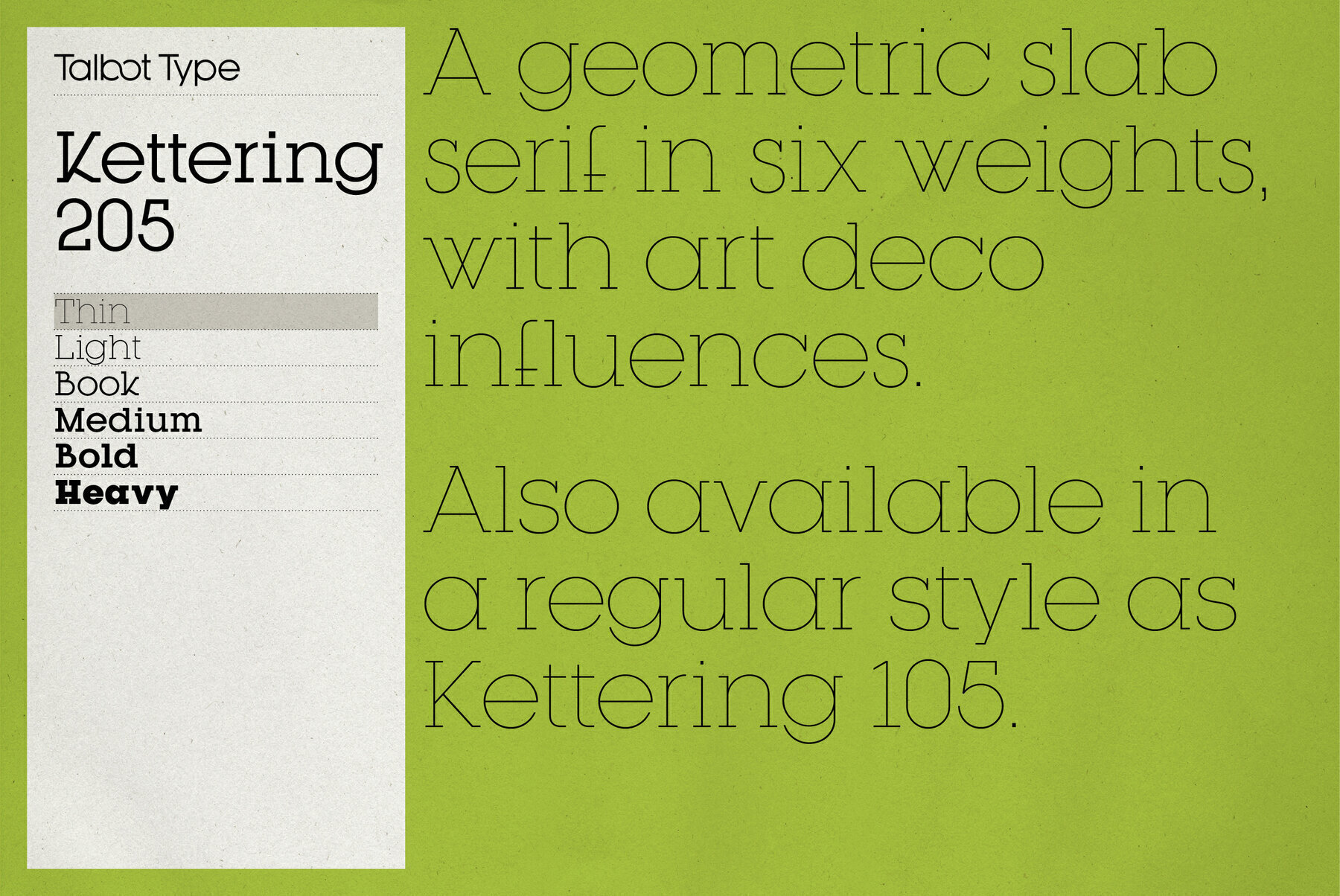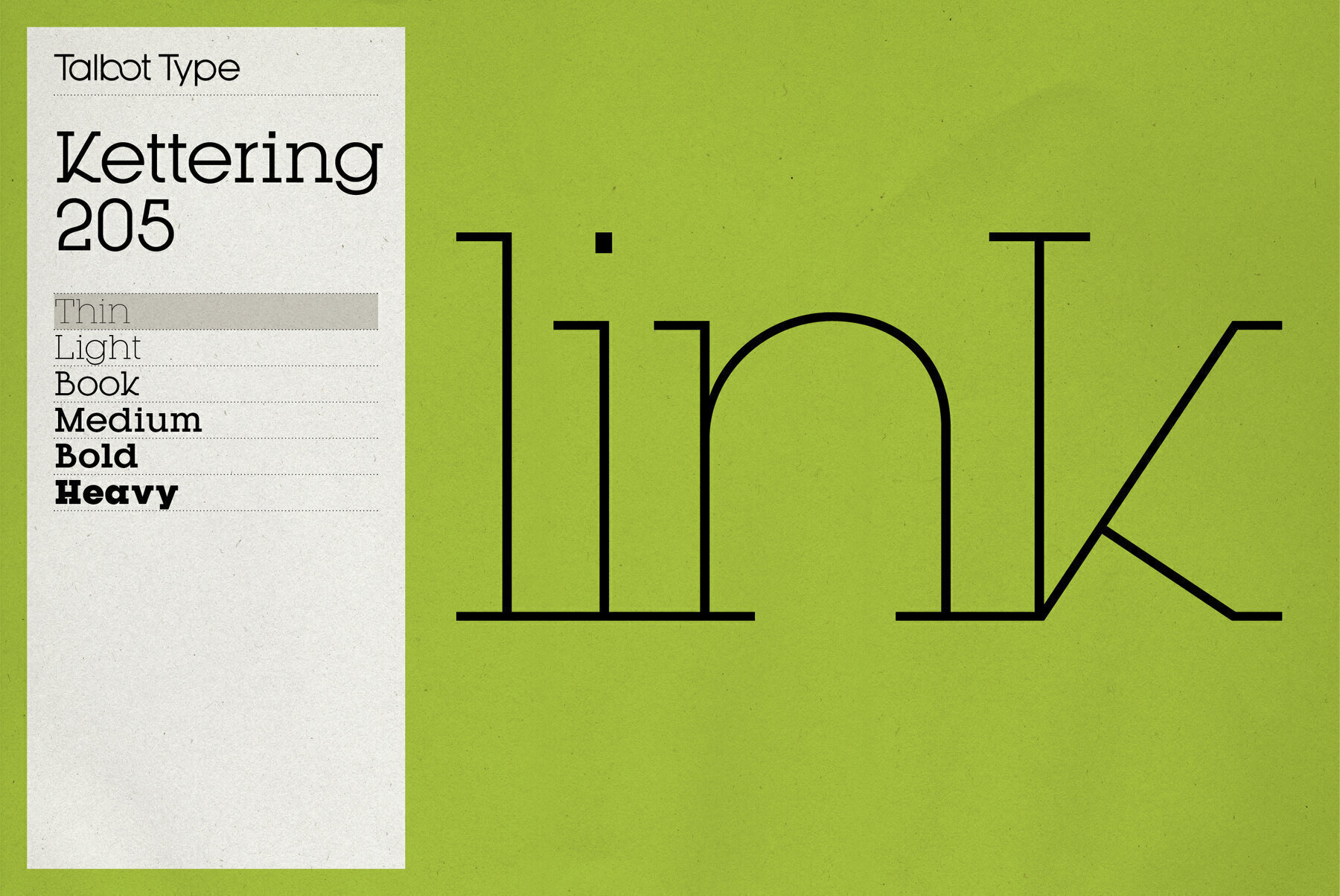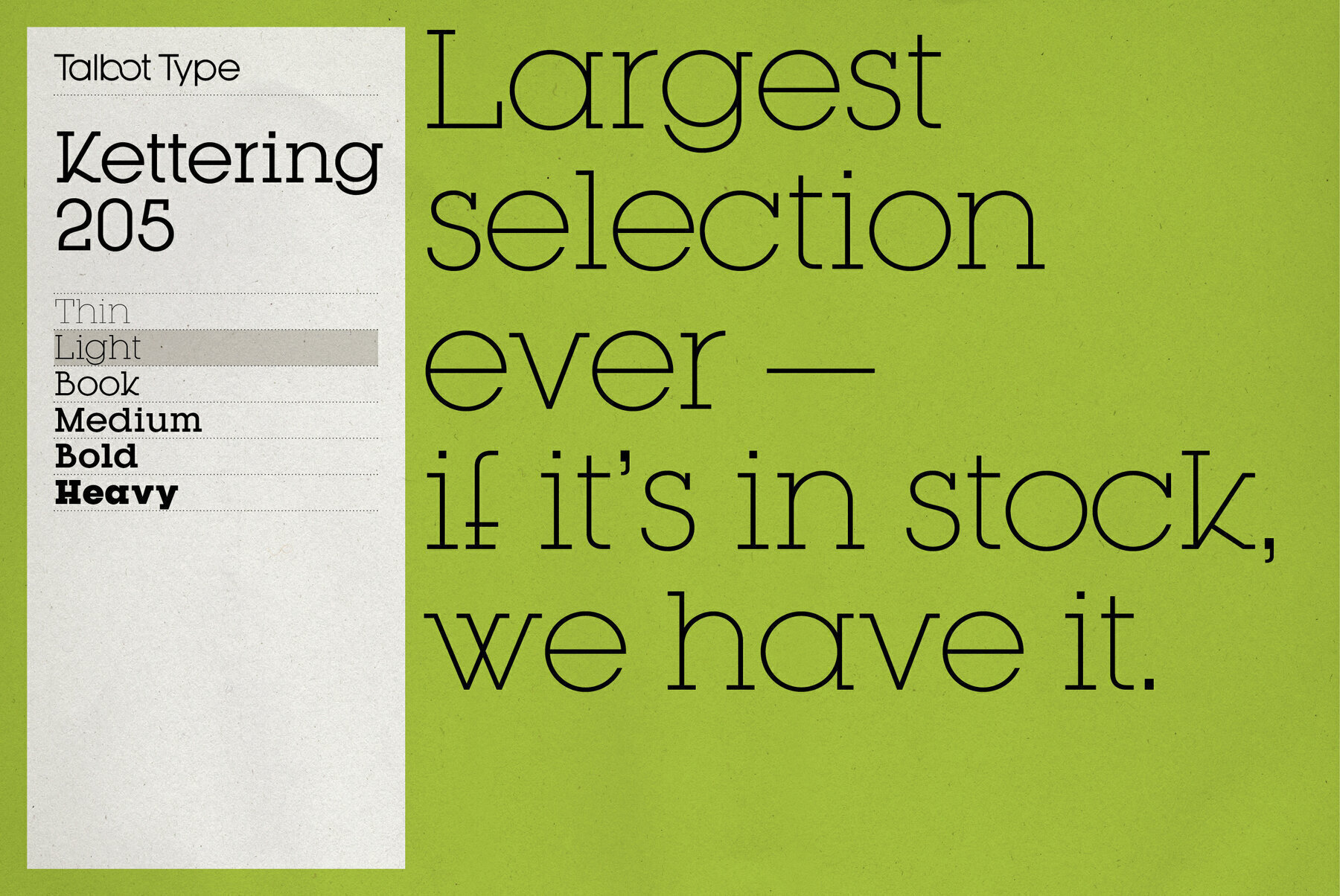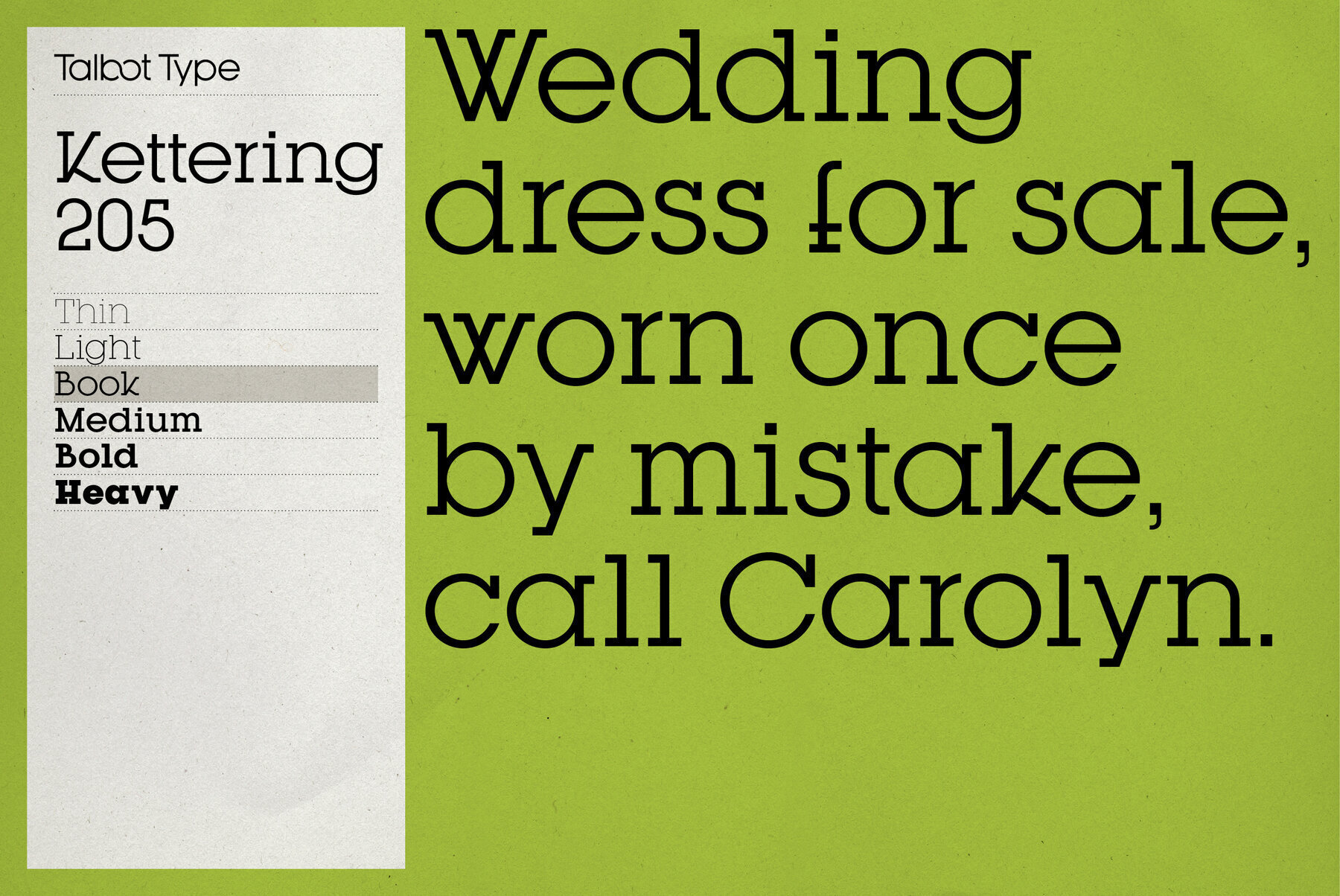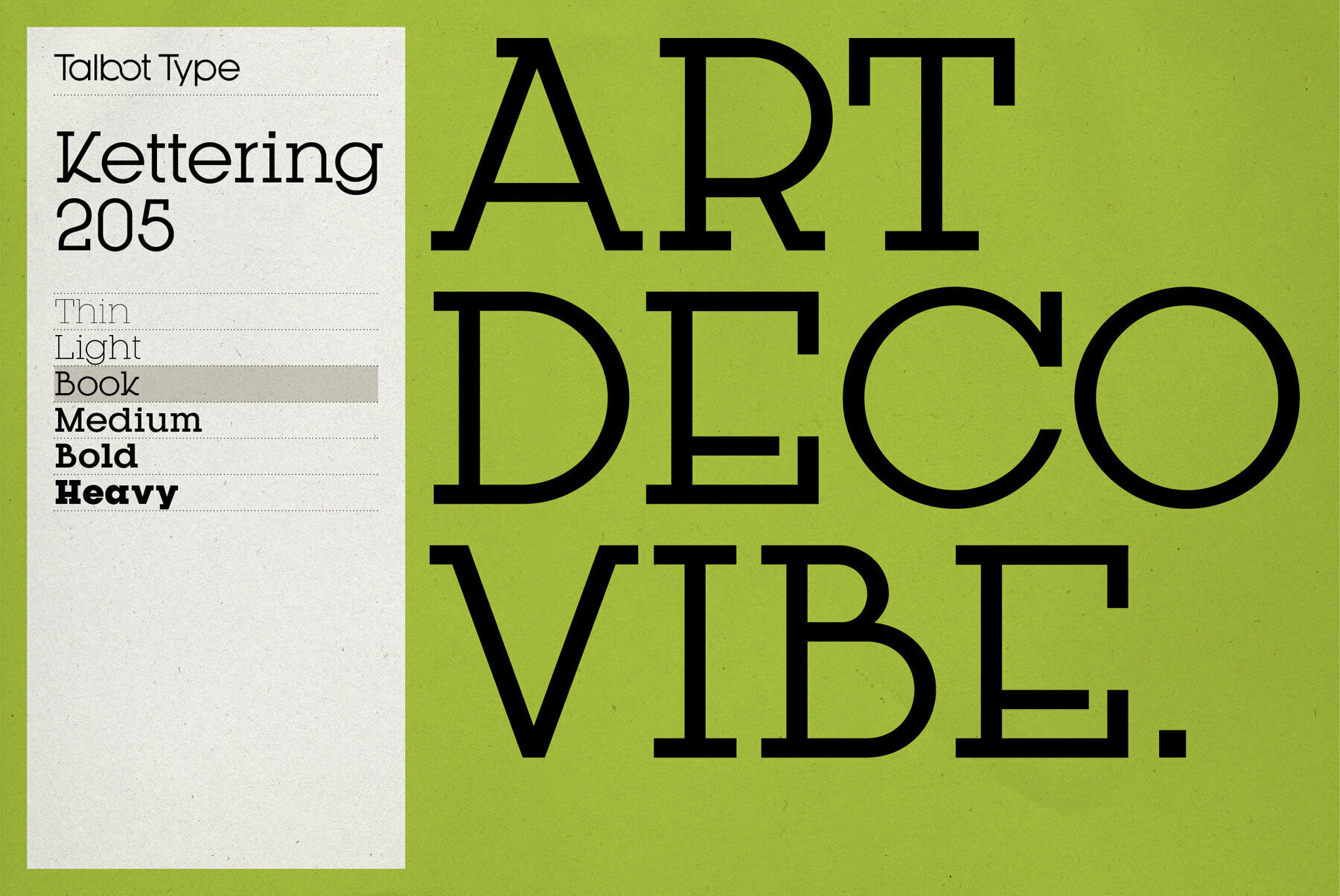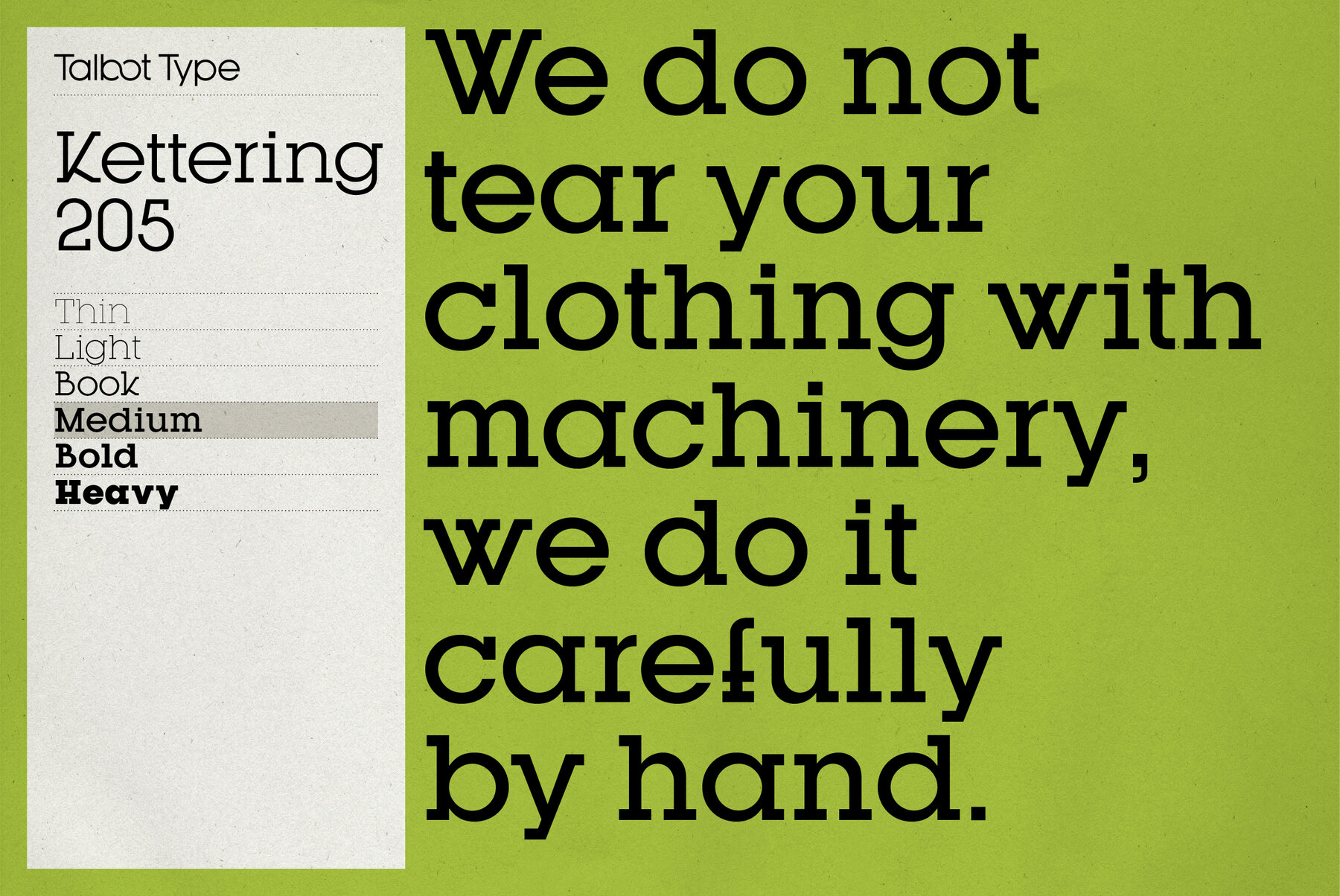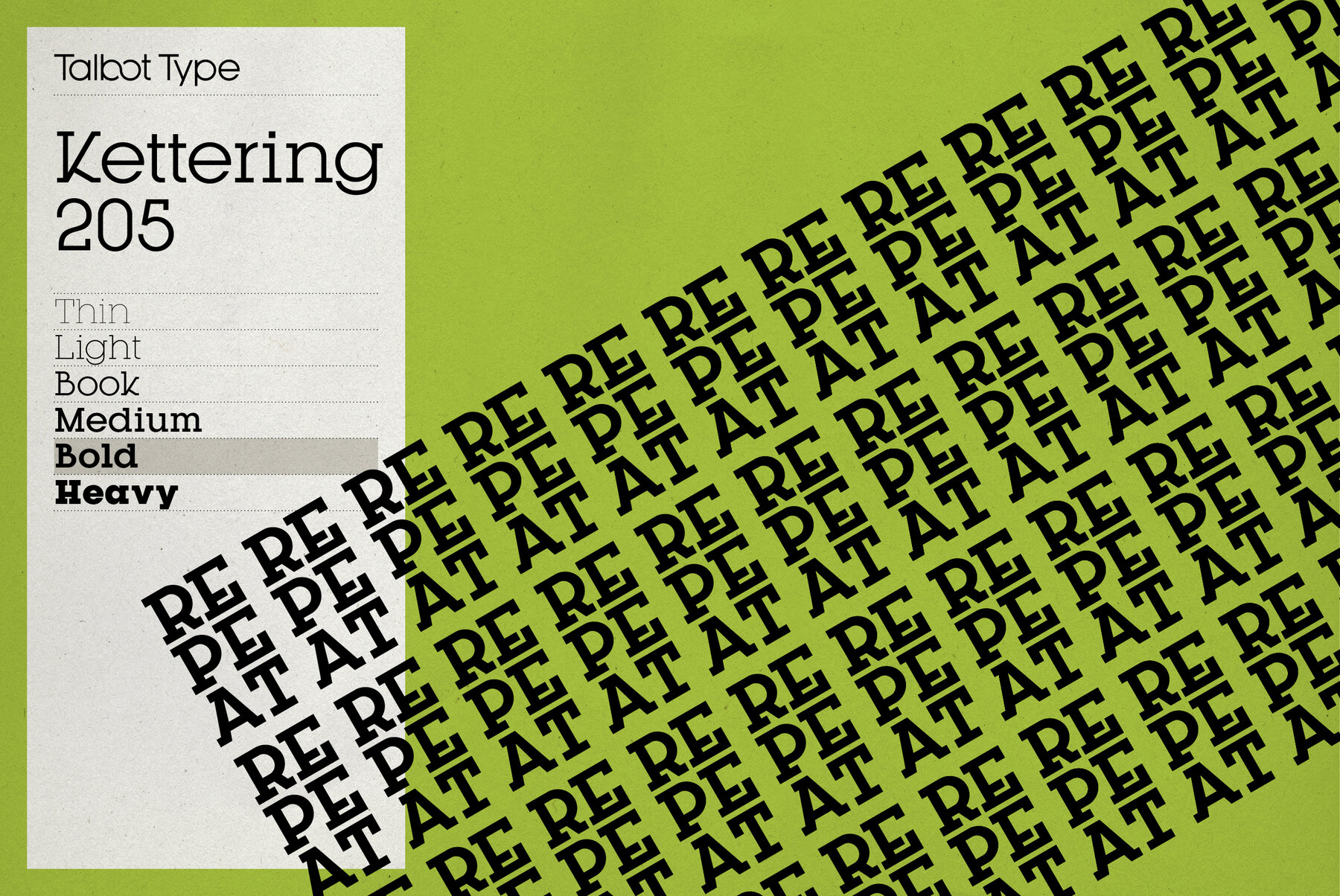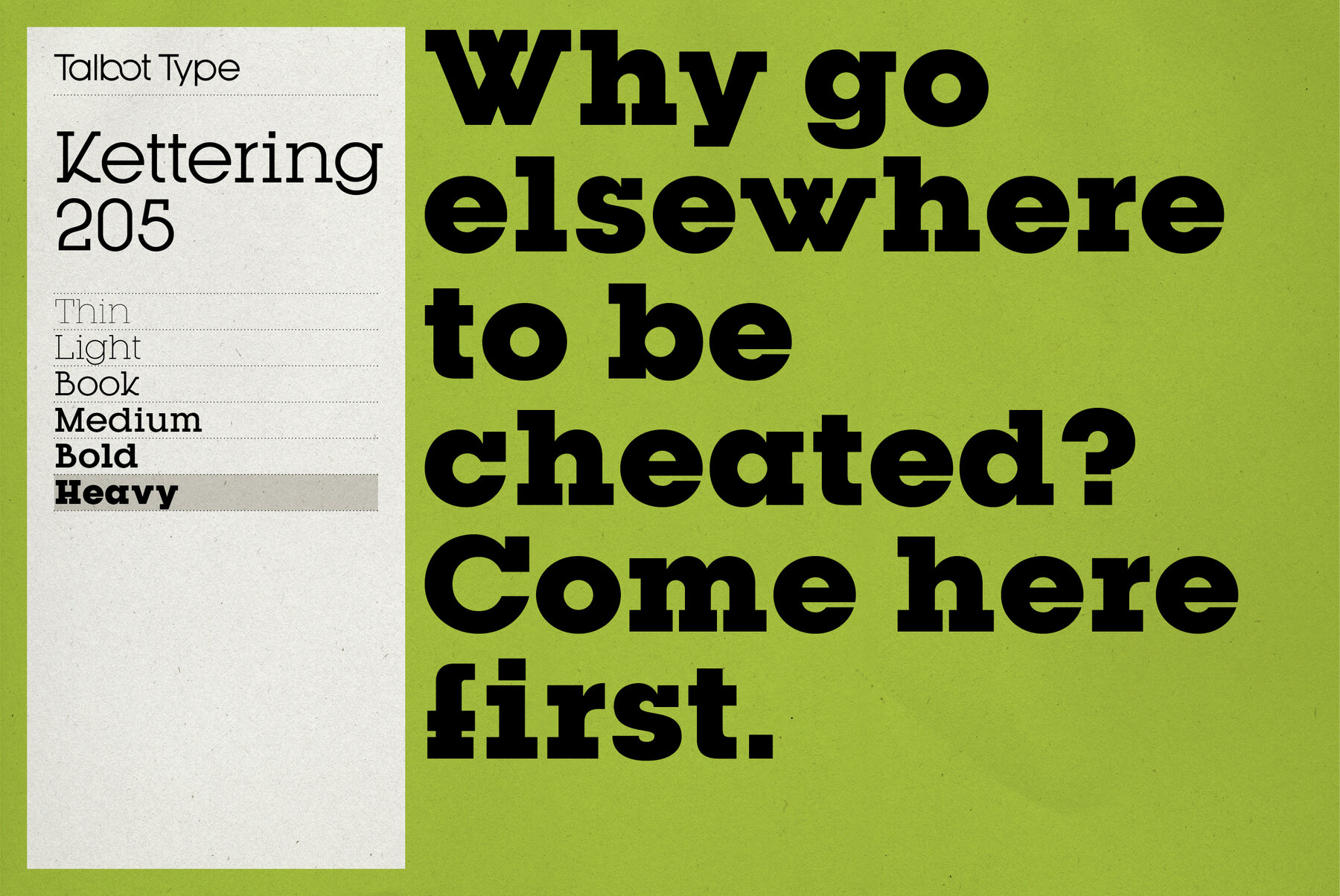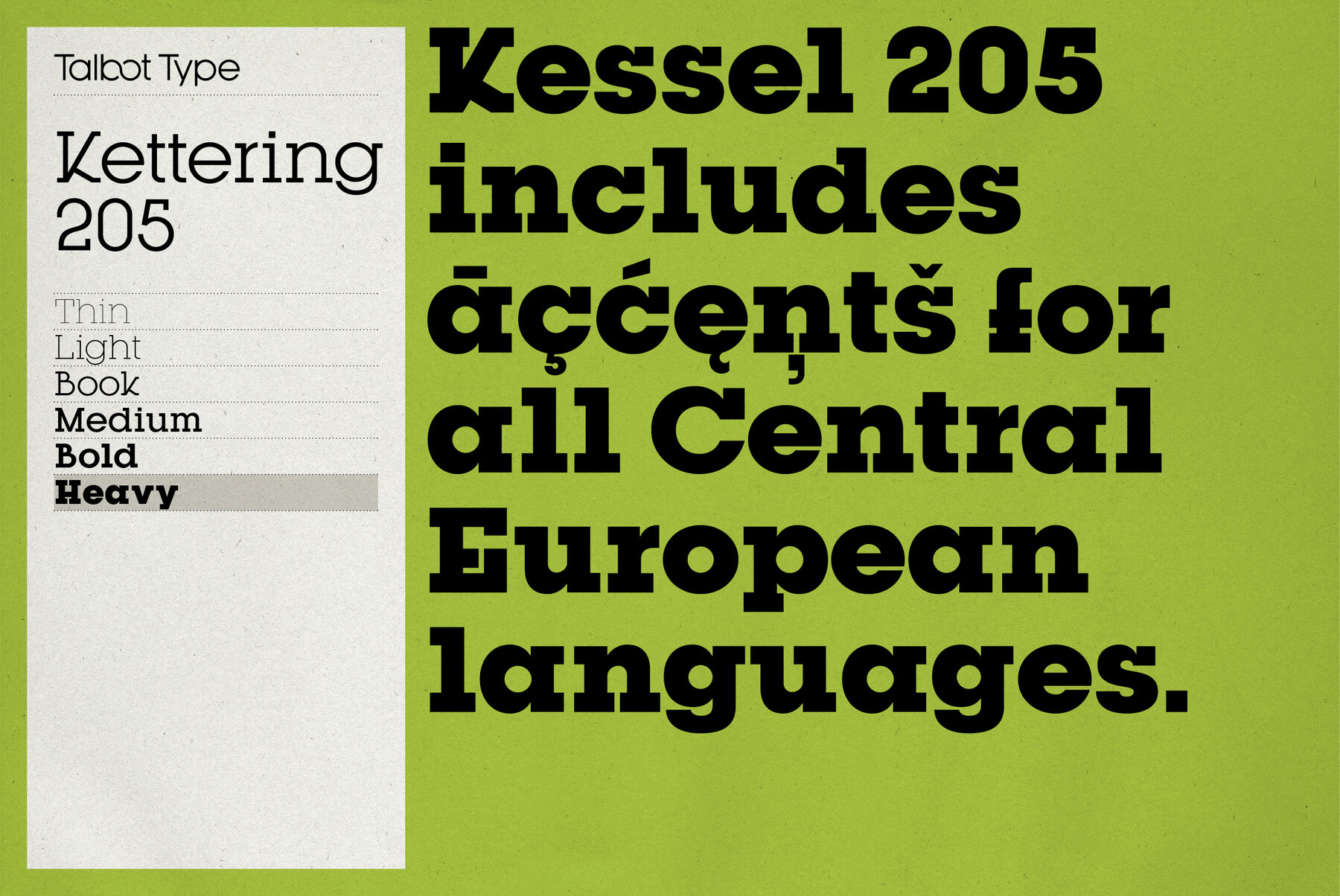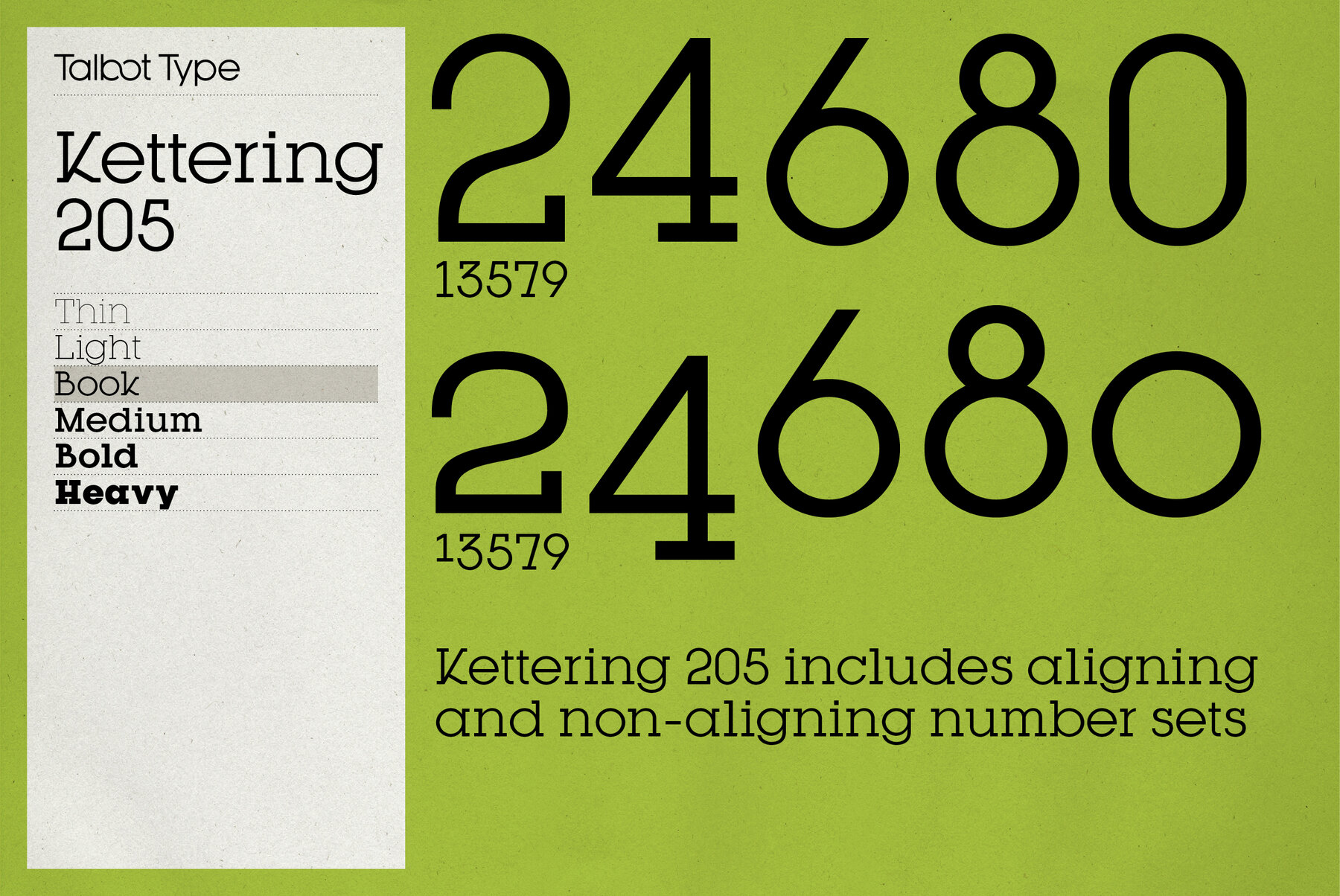
Kettering 205 Font
Kettering 205 is inspired by the classic, geometric slab-serifs such as Lubalin, but has shallower ascenders and descenders for a more compact look, and features art deco influenced, lowered crossbars and an oblique crossbar on the lower case e. It's a versatile, modern slab-serif, highly legible as a text font and with a distinctive, elegant look as a display font at larger sizes.
The Kettering 205 family comprises of six weights and is closely related to Kettering 105. Both variations feature an extended character set to include accented characters for Central European languages.
All other weights have had a few missing Central European accented characters added.